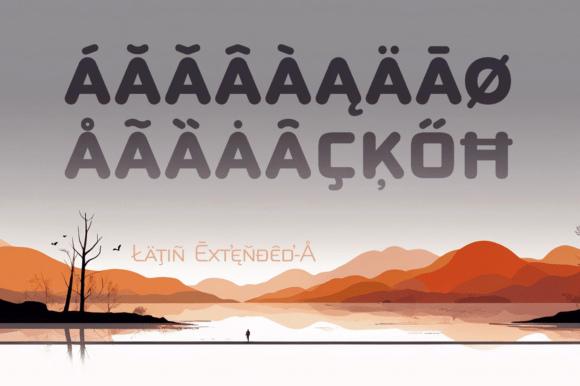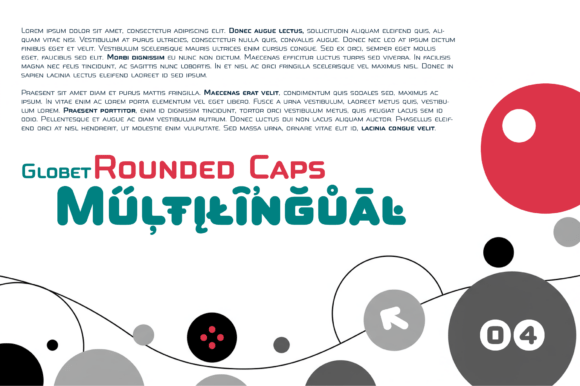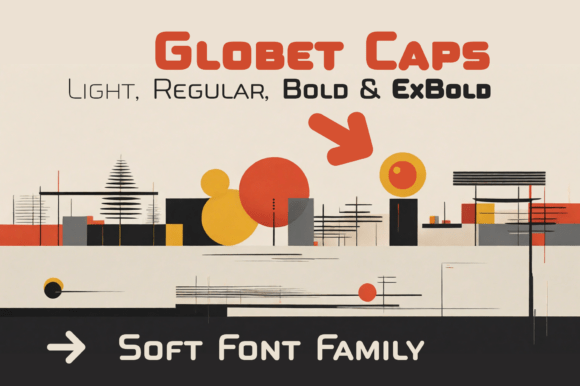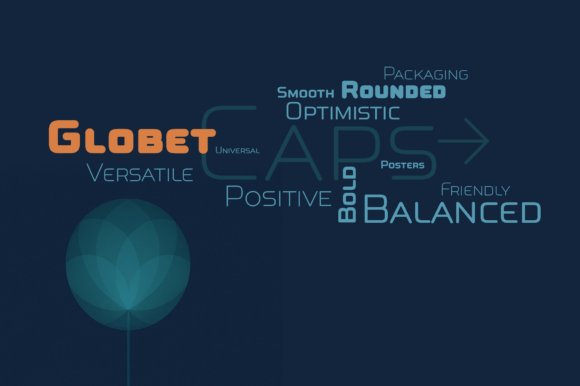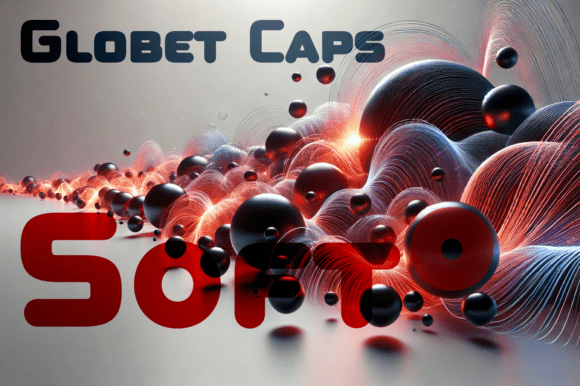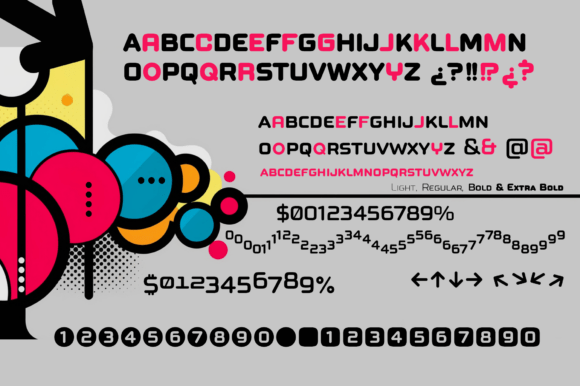
Globet in Capitals Font: A Masterful Blend of Geometry and Strength
In the realm of typography, few fonts manage to strike a balance between elegance and impact. Globet in Capitals Font, however, achieves this feat with remarkable finesse. This display font family is an all-caps variant of Globet Round, boasting a refined DNA that merges gentle geometry with the strength of capital letters. The result is a typeface that exudes professionalism, closeness, and modernity, making it an ideal choice for designers and crafters seeking to make a lasting impression.
Design and Characteristics
Globet in Capitals Font is a rounded, geometric sans serif font with square proportions, composed exclusively of capital letters. This distinctive design gives the font a powerful, versatile, and surprisingly warm personality. The rounded shapes of Globet Caps soften the rigidity of its square structure, generating a typographic voice that is clear without being cold, and powerful without being aggressive.
One of the standout features of Globet in Capitals Font is its unique capital letter design, which lends it a distinctive character and strong presence. This makes it particularly well-suited for headlines and elements that need to stand out visually. The font’s architecture is meticulously crafted, with a focus on creating a seamless visual experience.
Variants and Typography Hierarchies
Globet in Capitals Font offers three capital letter variants: Capitals, Small Caps, and Petite Caps. These variants allow designers to create subtle typographic hierarchies, enriching editorial and graphic design. The inclusion of these variants adds a layer of sophistication to the font, making it an excellent choice for projects that require nuance and depth.
The Capitals variant is ideal for headlines and titles, where a strong visual impact is desired. The Small Caps variant adds a touch of elegance, perfect for body text or descriptions. The Petite Caps variant provides a nuanced alternative, suitable for creating subtle visual distinctions. With these variants, designers can experiment with different typographic combinations, adding depth and visual interest to their work.
Applications and Use Cases
Globet in Capitals Font is a versatile typeface with a wide range of applications. Its unique blend of geometry and strength makes it suitable for various design projects, including:
- Headlines and titles: The font’s strong presence and distinctive character make it perfect for grabbing attention.
- Editorial design: Globet in Capitals Font’s variants enable designers to create nuanced typographic hierarchies, enhancing the overall reading experience.
- Graphic design: The font’s geometric and rounded shapes make it an excellent choice for branding, logos, and visual identity projects.
- Digital design: Globet in Capitals Font’s clean and legible design ensures it remains effective in digital environments, from websites to mobile applications.
Globet in Capitals Font is a masterful blend of geometry and strength, offering designers a powerful tool for creating visually stunning typography. Its unique capital letter design, variants, and versatility make it an excellent choice for a wide range of design projects. Whether you’re a designer, crafter, or typography enthusiast, Globet in Capitals Font is sure to leave a lasting impression.
With its impeccable visual impact, Globet in Capitals Font is poised to become a go-to typeface for designers seeking to elevate their work. Its distinctive character, combined with its versatility and range of applications, make it an essential addition to any design arsenal.